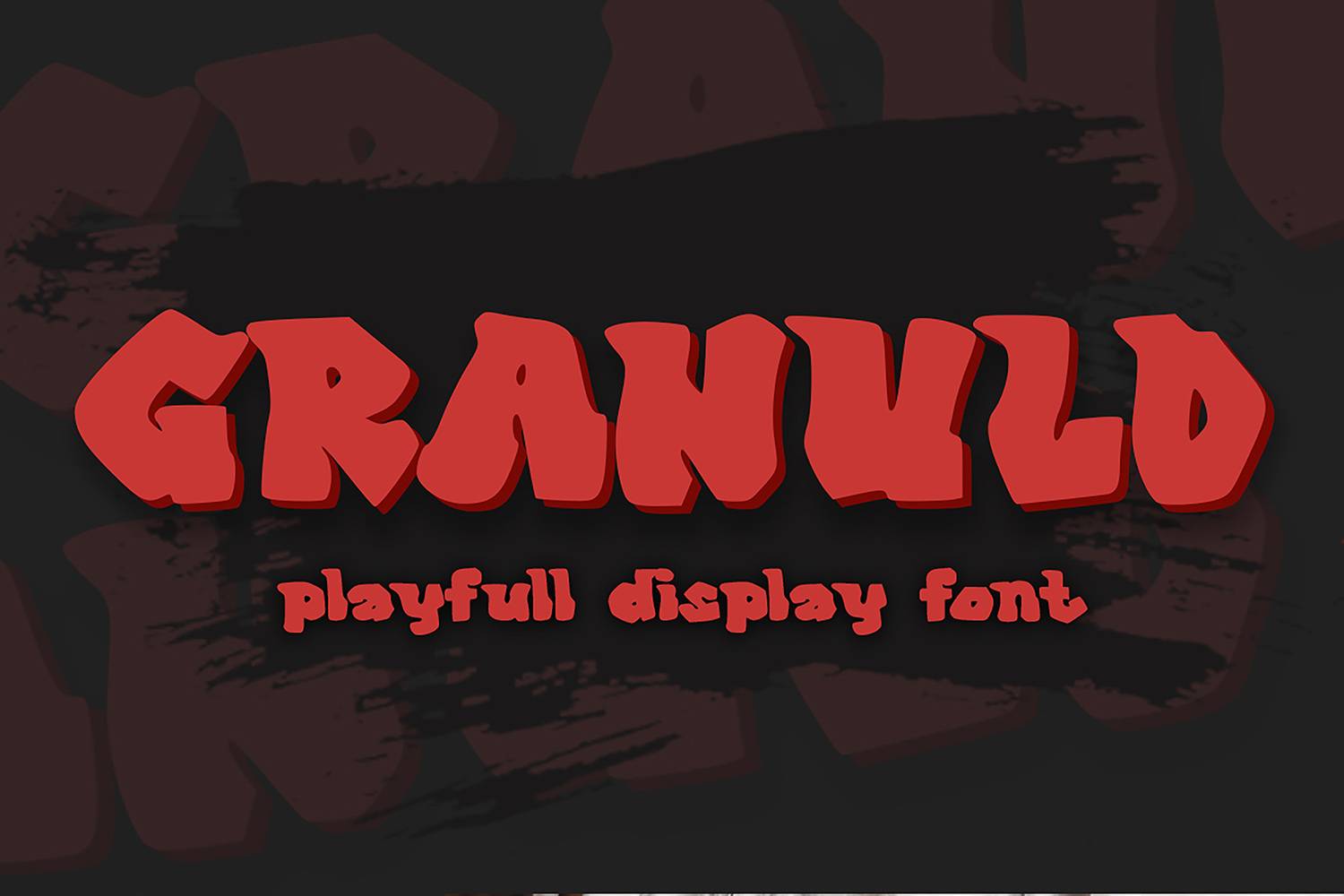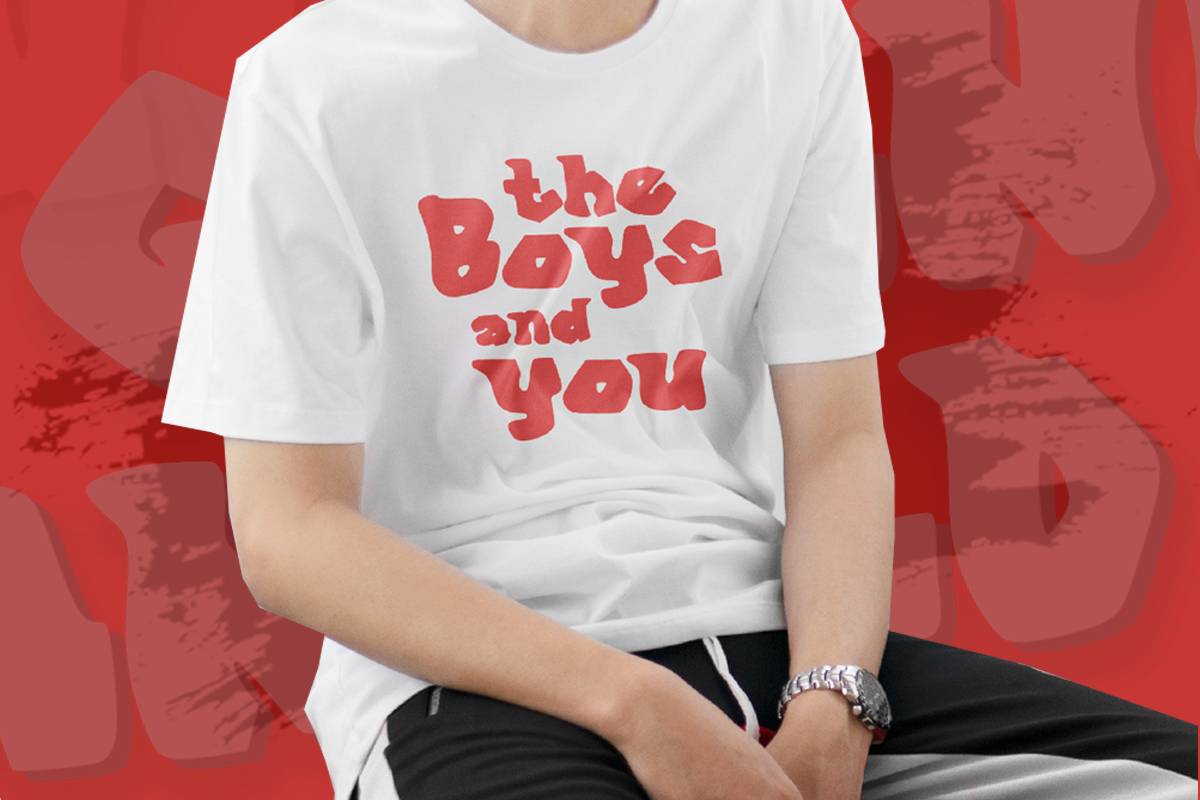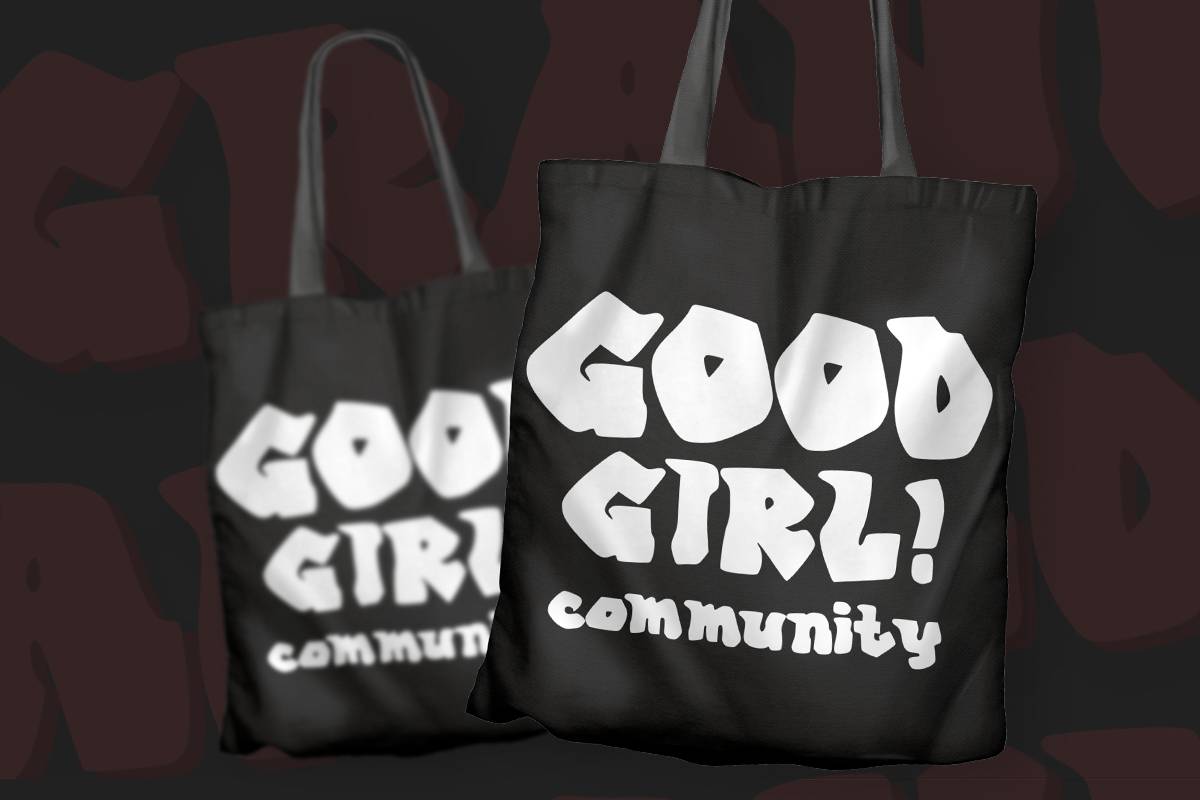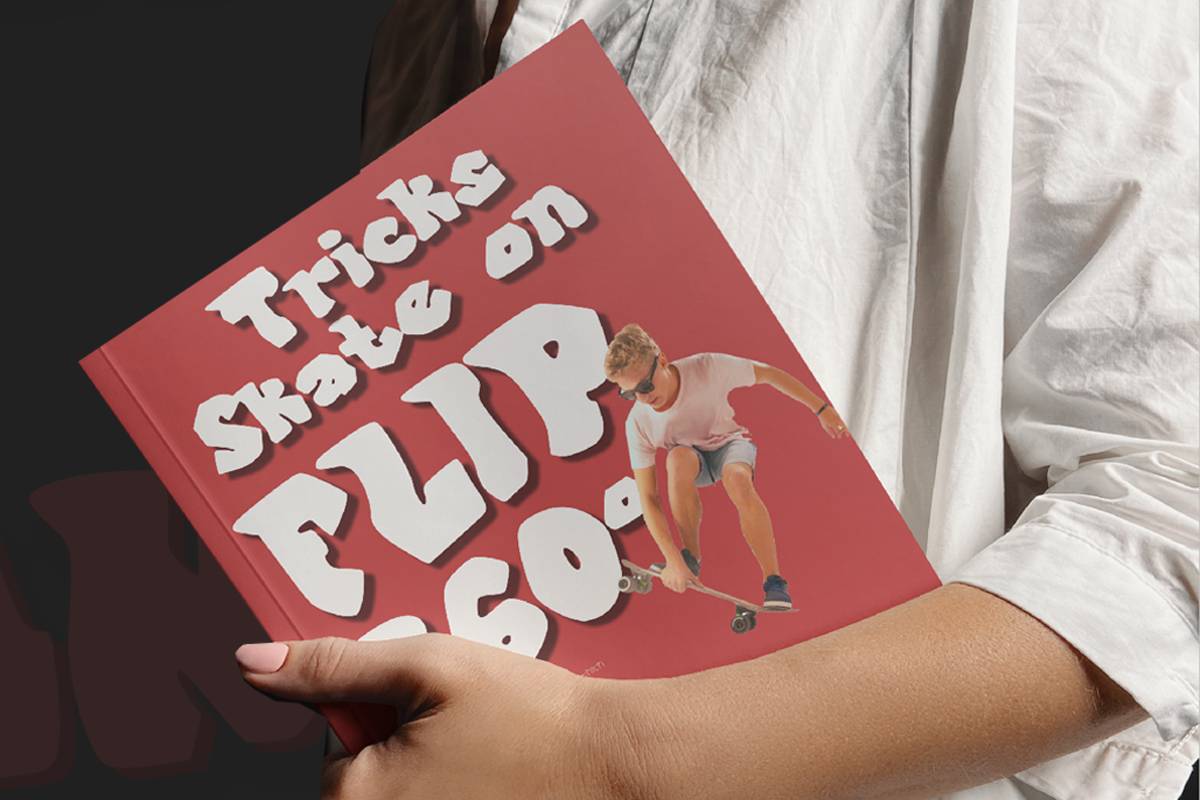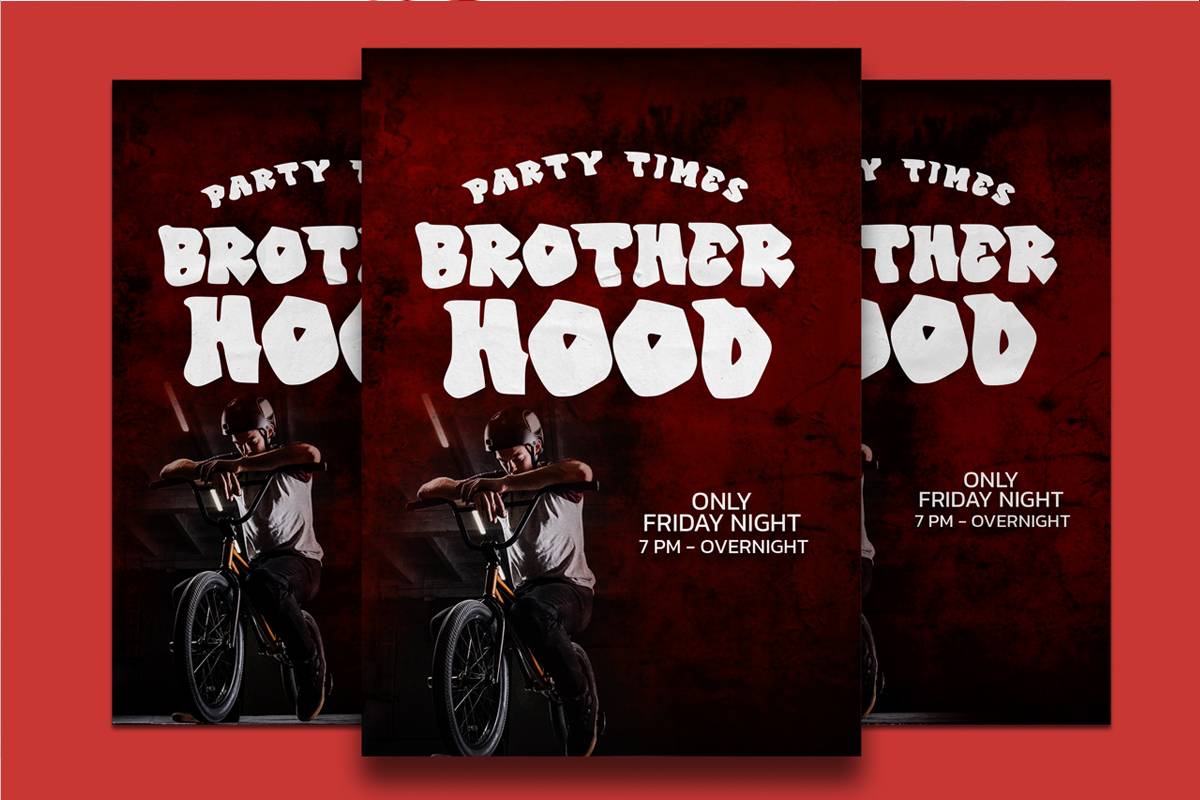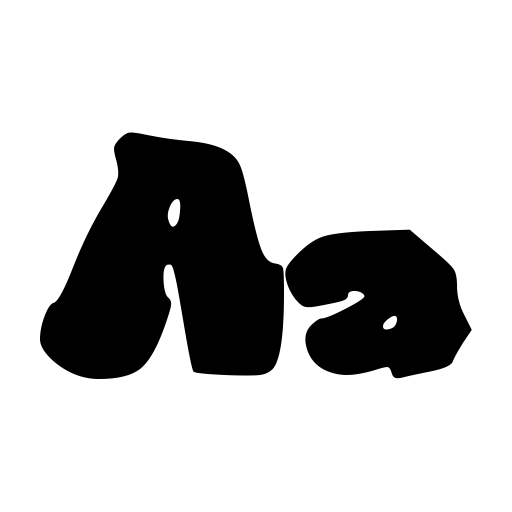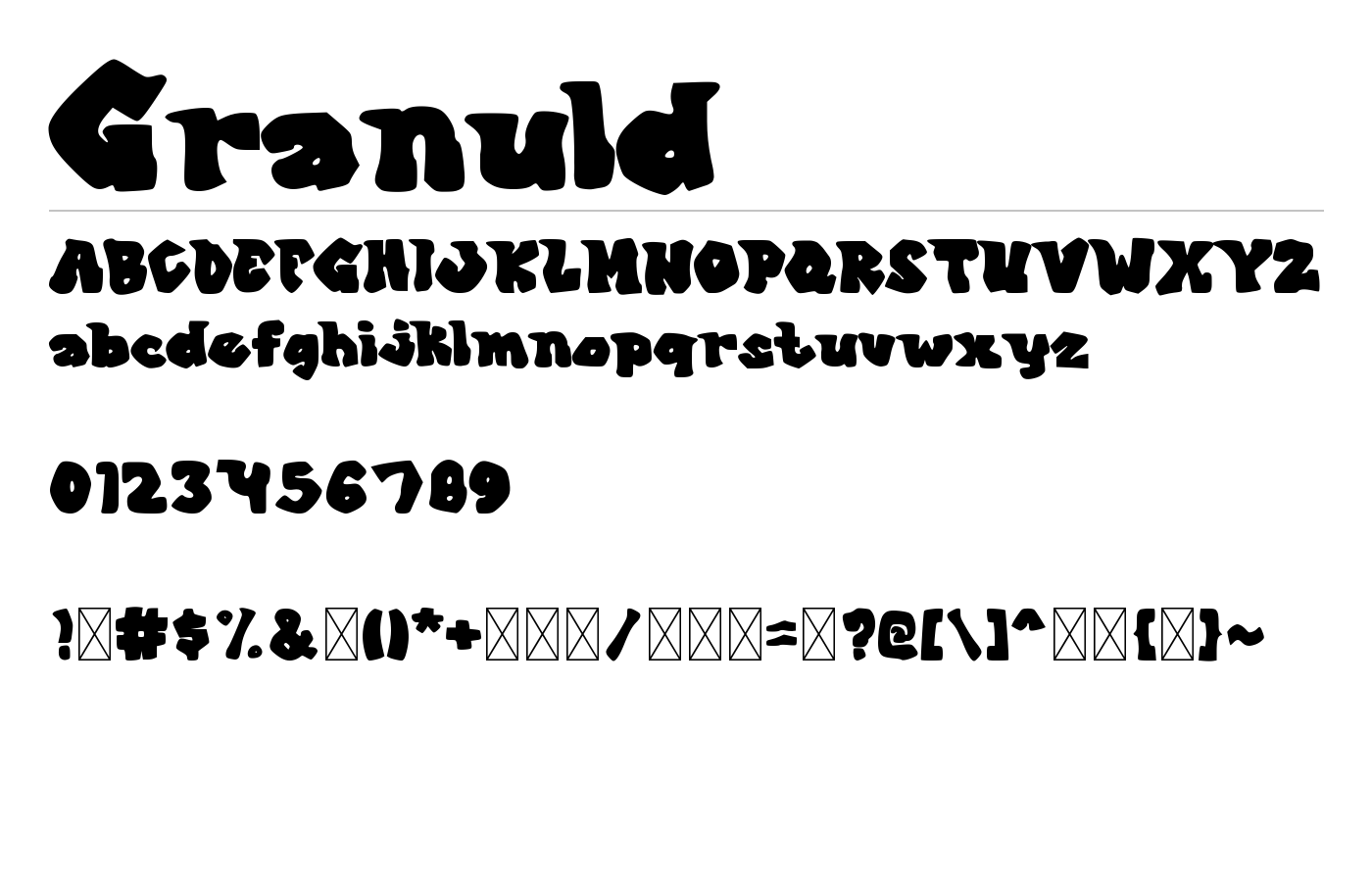
Granuld is a bold and playful display font with chunky, irregular letterforms that give it a hand-crafted, almost whimsical feel. Its thick strokes and uneven shapes create a strong, eye-catching presence perfect for fun and informal designs like posters, logos, and creative branding. This font works best in settings where a quirky and energetic vibe is desired, making it ideal for youth-focused and artistic projects.
Granuld Font
About Granuld Font